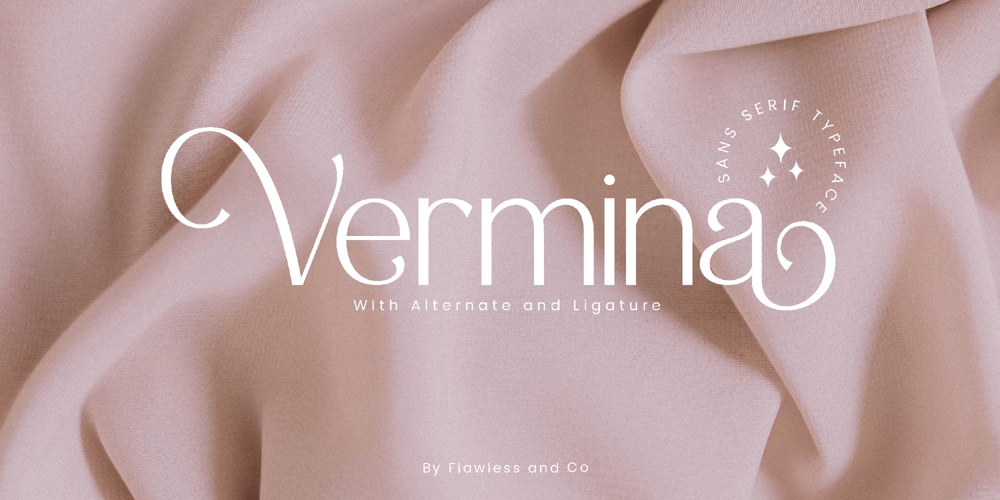
Vermina Font Family was designed by Achmad Yani and published by Flawlessandco. Vermina contains 1 styles and family package options. Vermina is a beautifully crafted Sans-Serif that is perfect for any design project.An Original typeface that suitable for any graphic designs such as branding materials, t-shirt, print, business cards, logo, poster, t-shirt, photography, quotes .etcThis font support for some multilingual. Modern Sweet Retro that contains uppercase A-Z and lowercase a-z, alternate character, numbers 0-9, and some punctuation.If you need help, just write me! Thanks so much for checking out my shop!